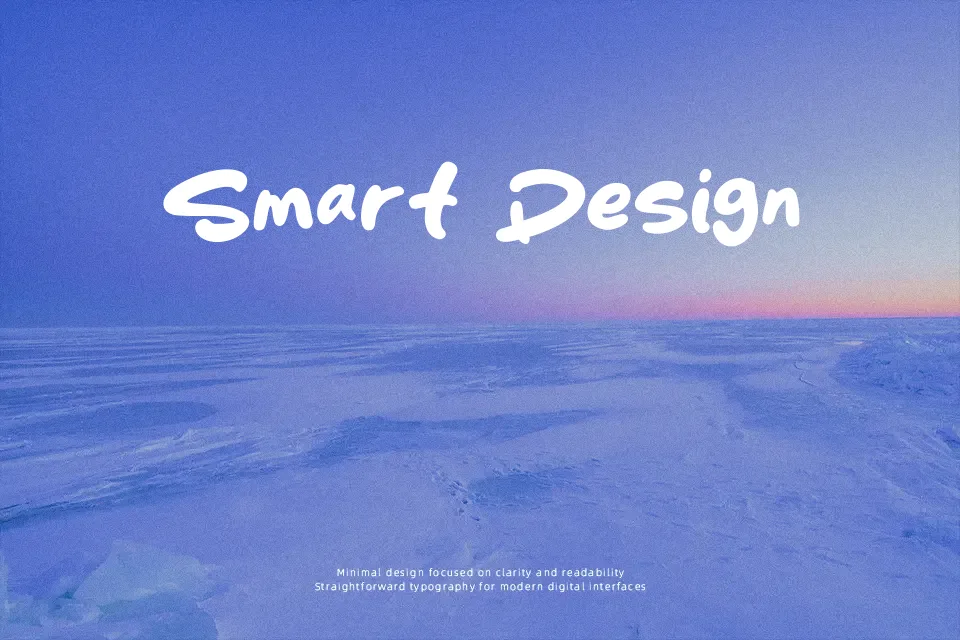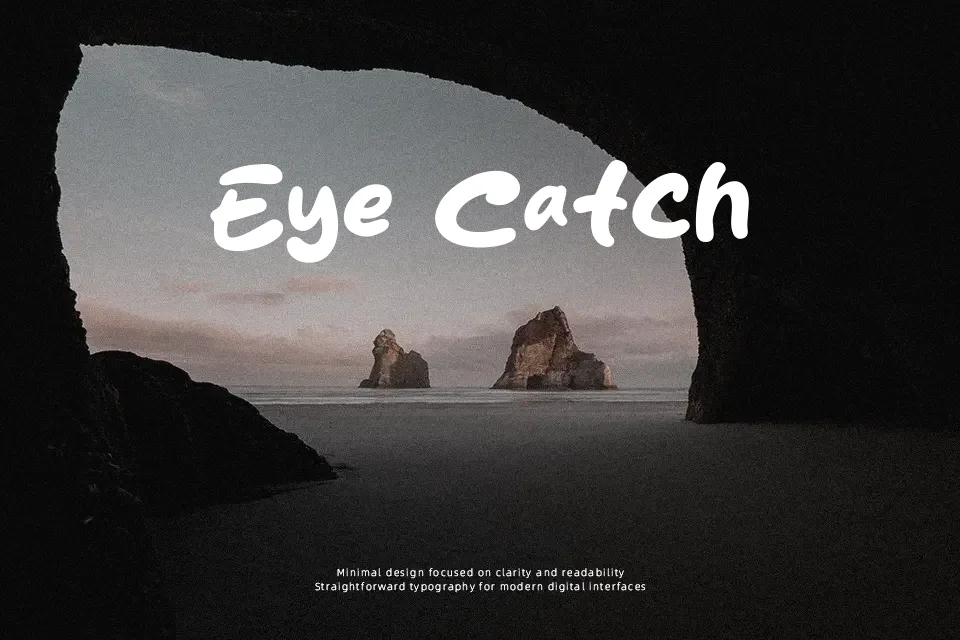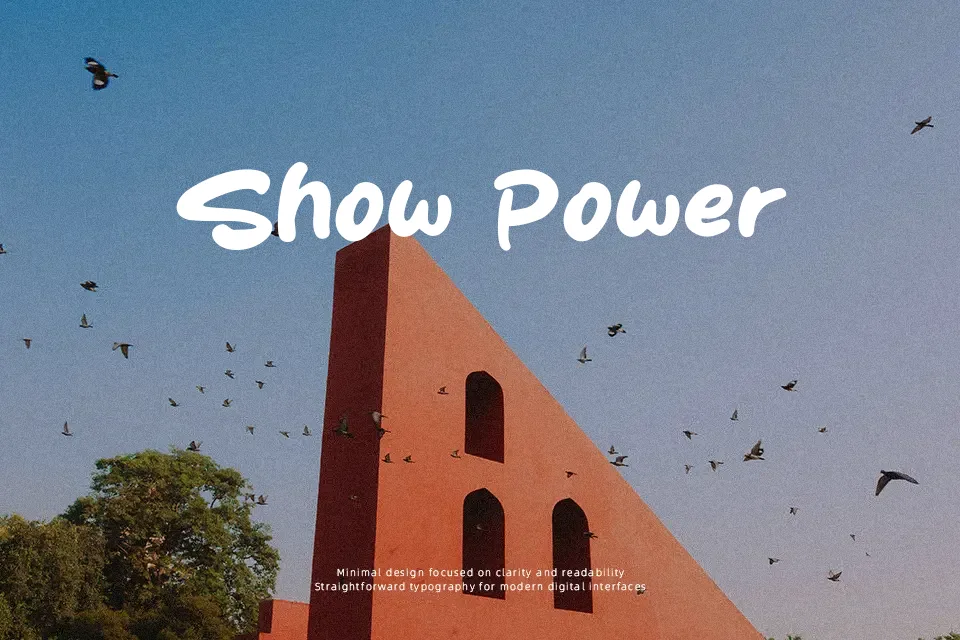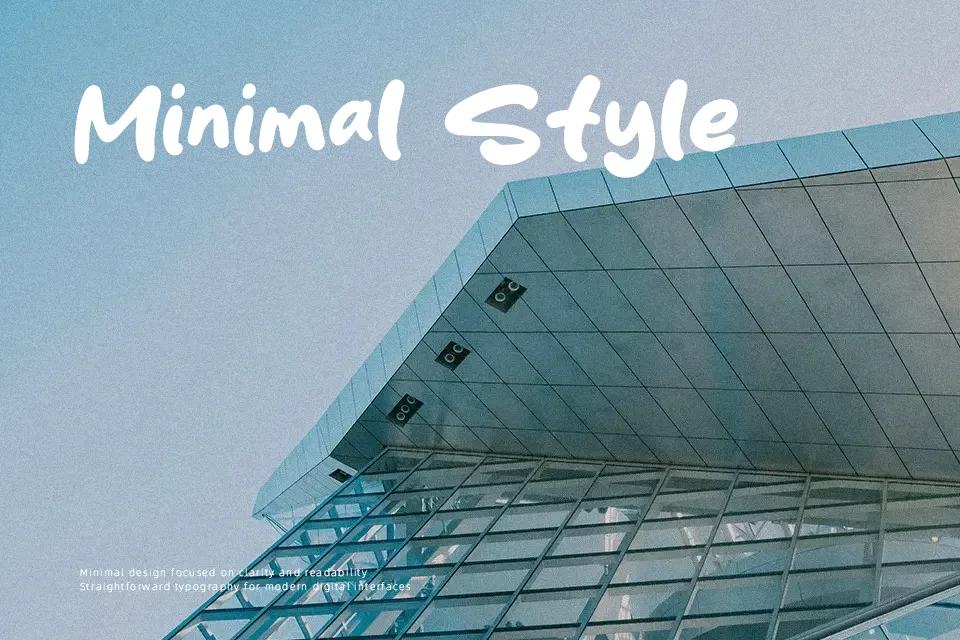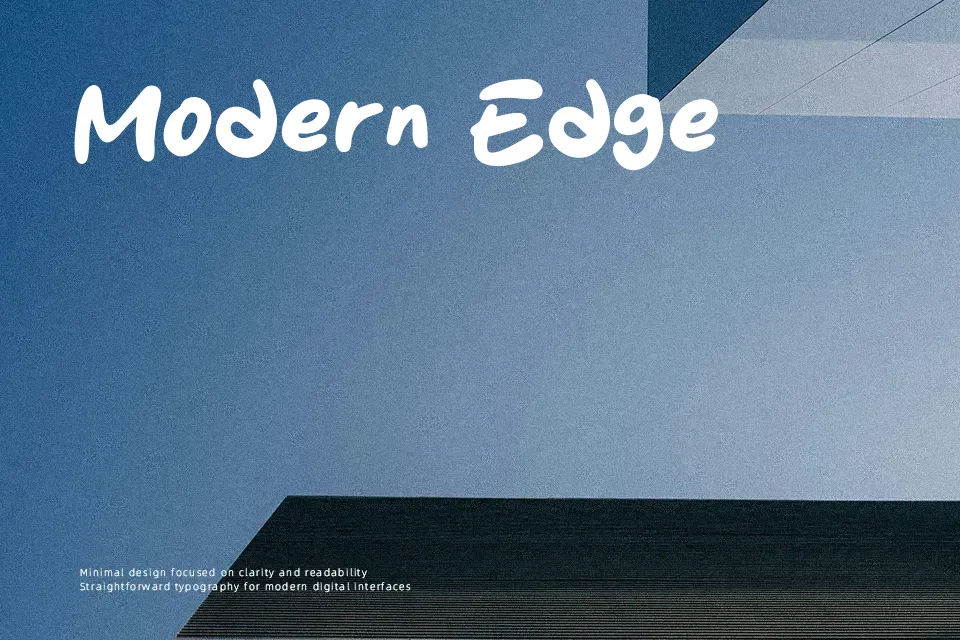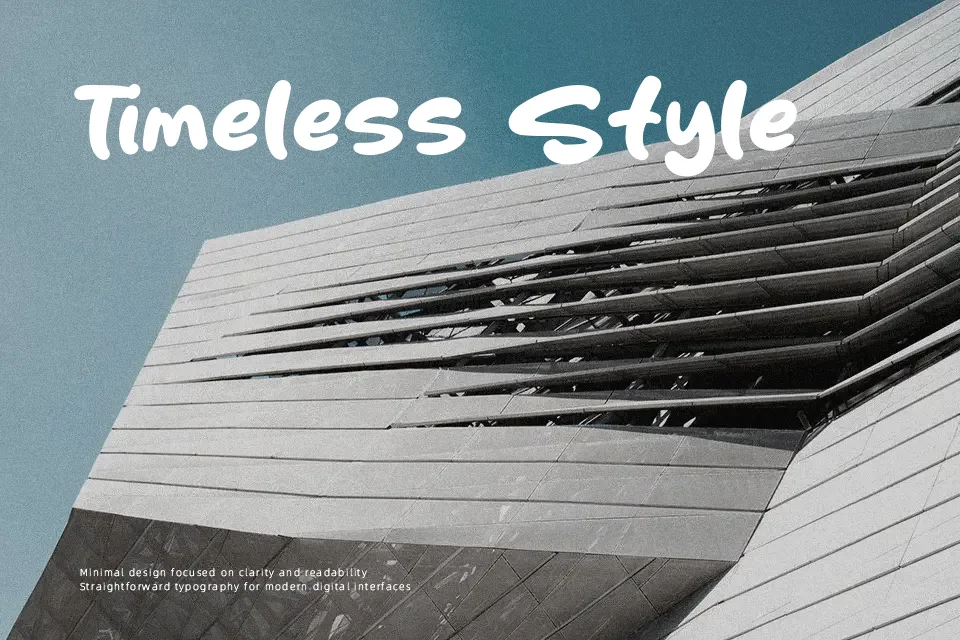
Skincake Font
Skincake Font features an energetic cartoon display design characterized by heavy, swollen strokes and softened corner terminals. The low stroke contrast and uniform weight establish a cheerful rhythm across short titles, while balanced character spacing prevents overlapping in large display settings. Each glyph displays soft, puffed proportions that give headlines an approachable, informal personality. In practical use, the generous stroke thickness ensures excellent visibility on posters and merchandise labels, though the compact internal counters make dense text difficult to decipher. Consequently, the typeface remains less effective for continuous reading or small captions, functioning best when applied to prominent, creative titles.
Best For: children’s book covers, animated movie posters, snack food packaging, toy branding
Not Ideal For: continuous body text, corporate annual reports, legal documentation, mobile interface subtext
Perfect for branding, headline, and kids, with a bold and cartoon style.